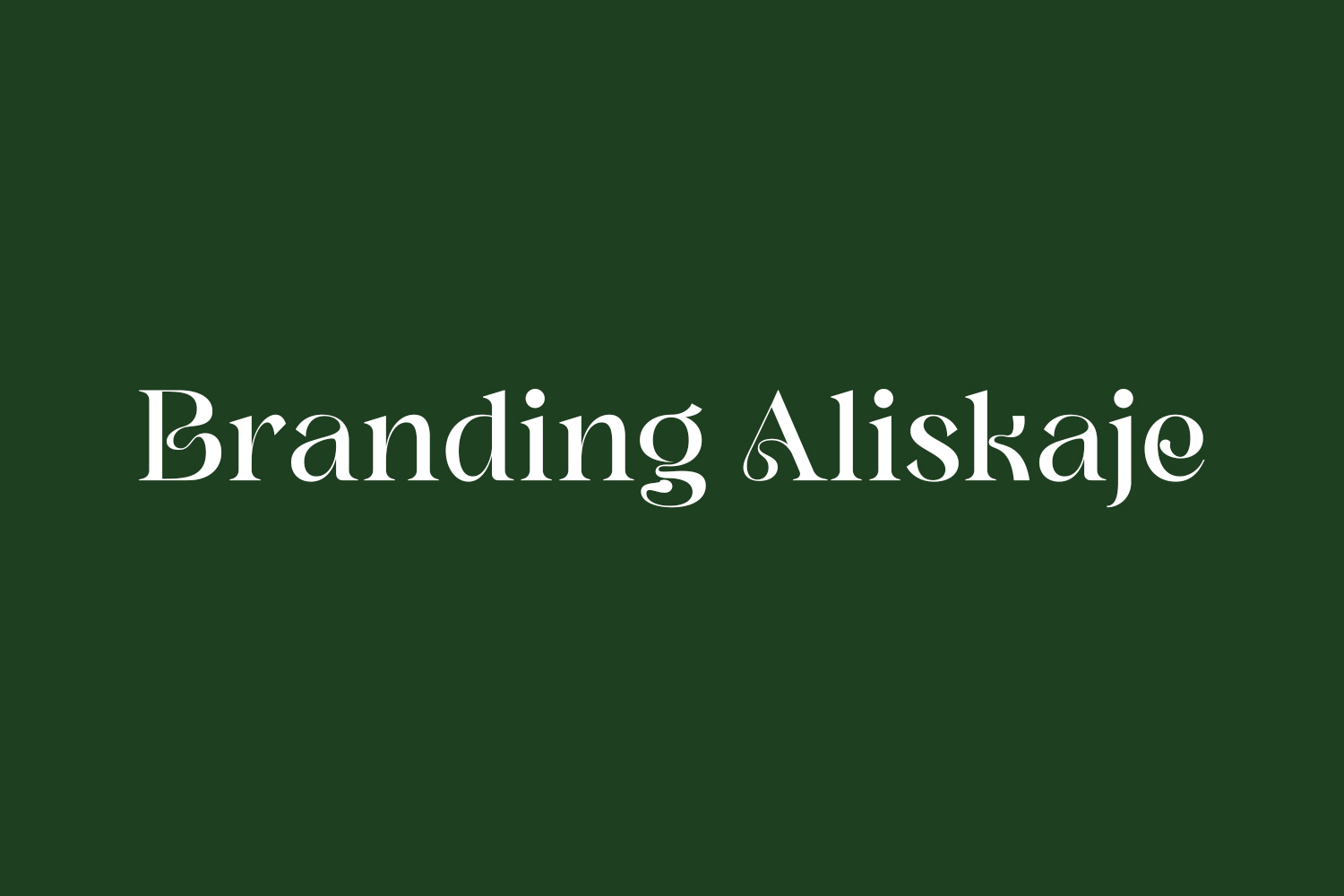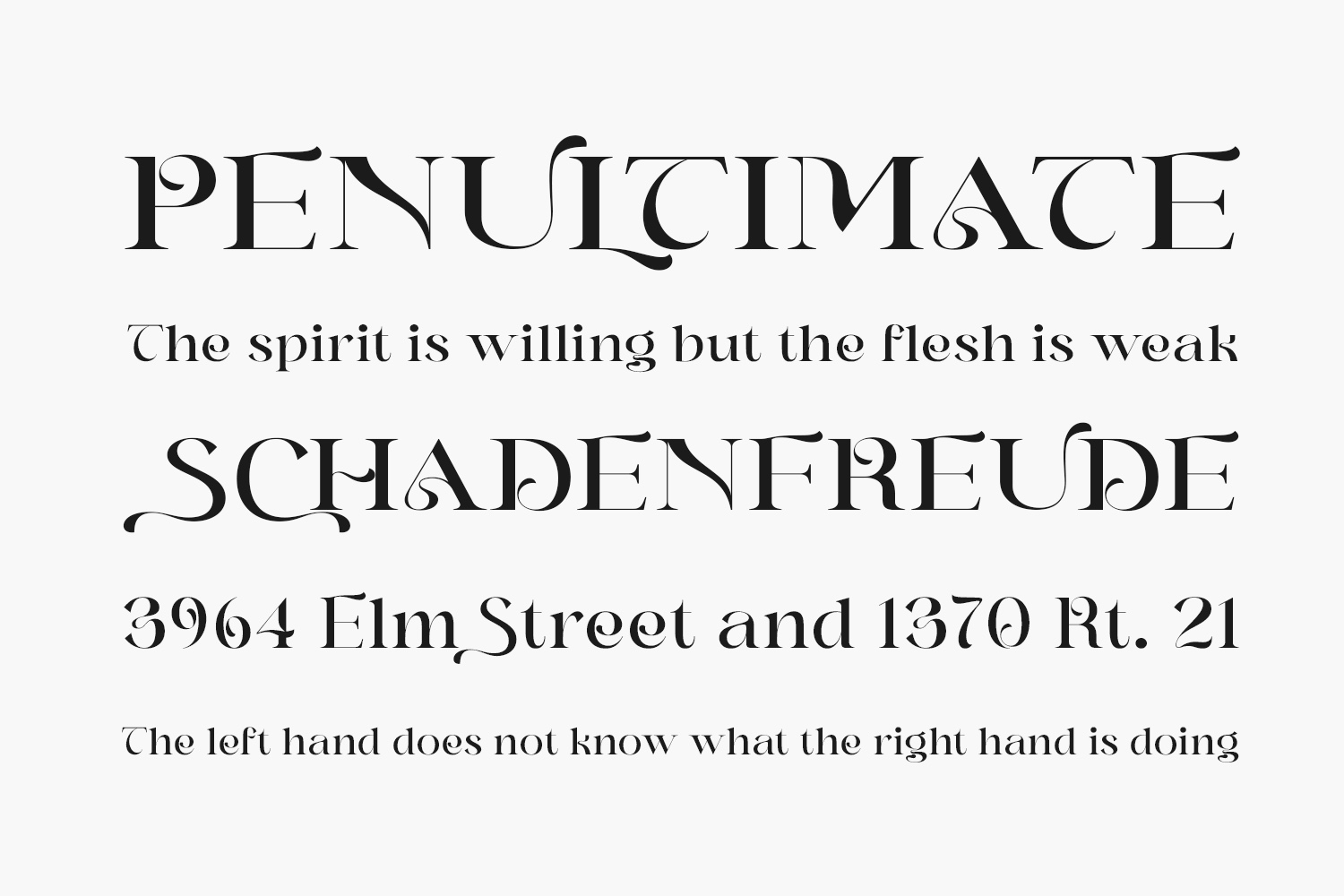
Branding Aliskaje Free Font Family exudes strength and professionalism, making it the perfect choice for branding and corporate design. Its clean, crisp lines and classic serif style give a timeless and confident feel to any project. Whether you’re creating a powerful logo or crafting a professional business card, this font is sure to make a lasting impression.